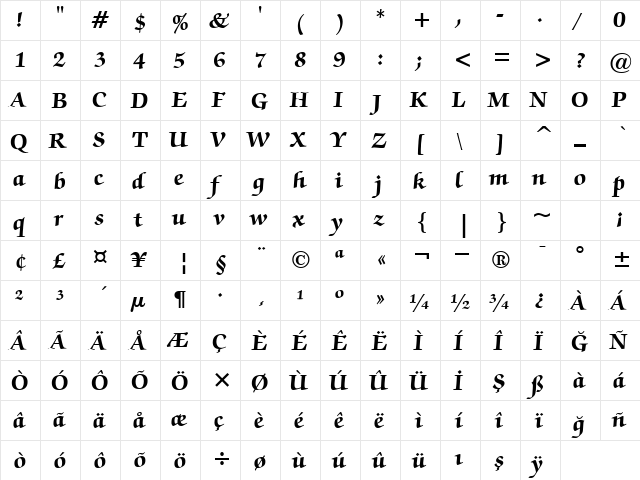
00916 Regular
Design Context for 00916 Typeface
00916 takes a measured approach to typography — its balanced proportions and neutral character make it a reliable workhorse for both digital and print work.